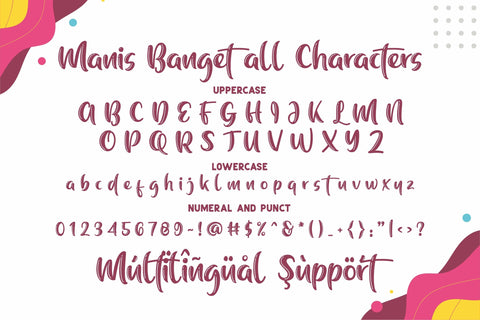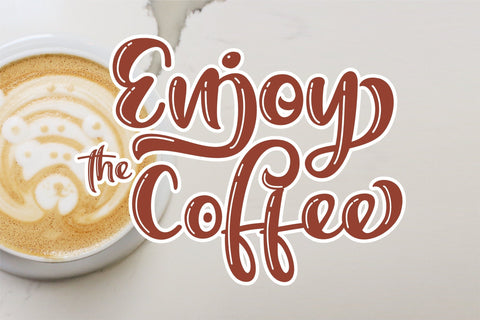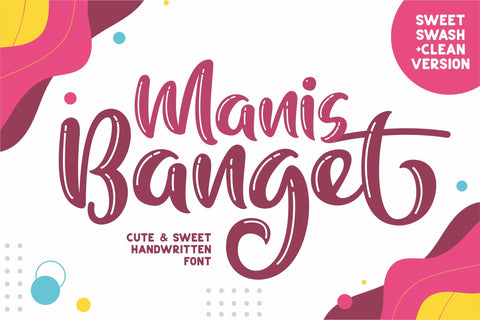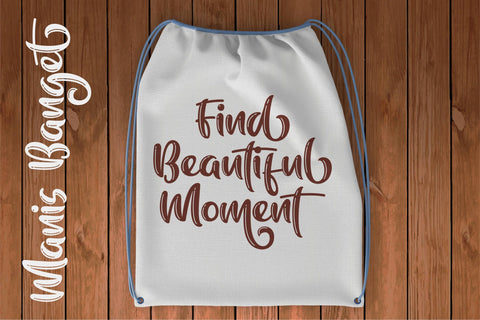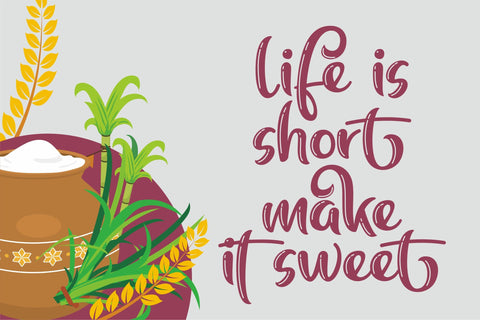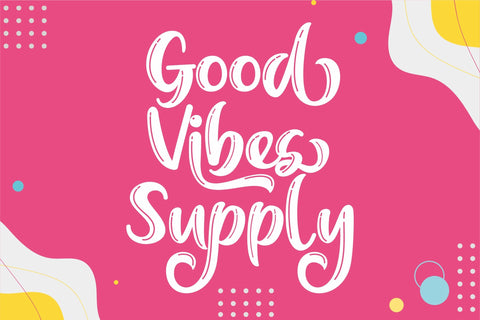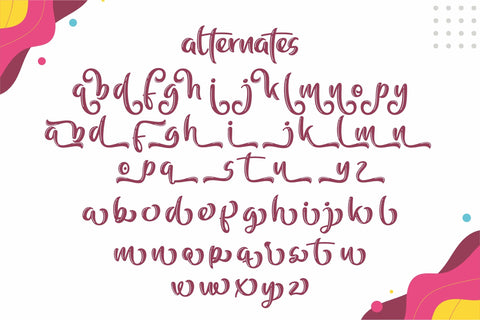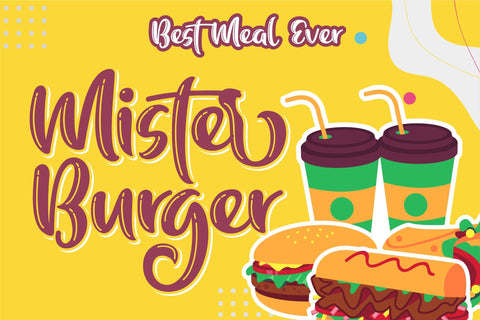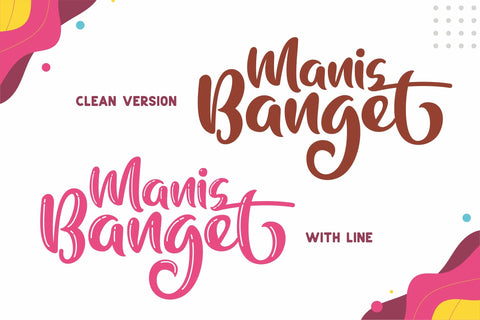
Manis Banget - Cute Font
Introducing our newest funny typeface with sweet swash, Manis Banget, a nice fun typeface. This font perfectly made to be in poster funny, and the other various formal forms such as invitations, labels, logos, magazines, books, packaging, fashion, make up, stationery, novels, labels or any type of advertising purpose.